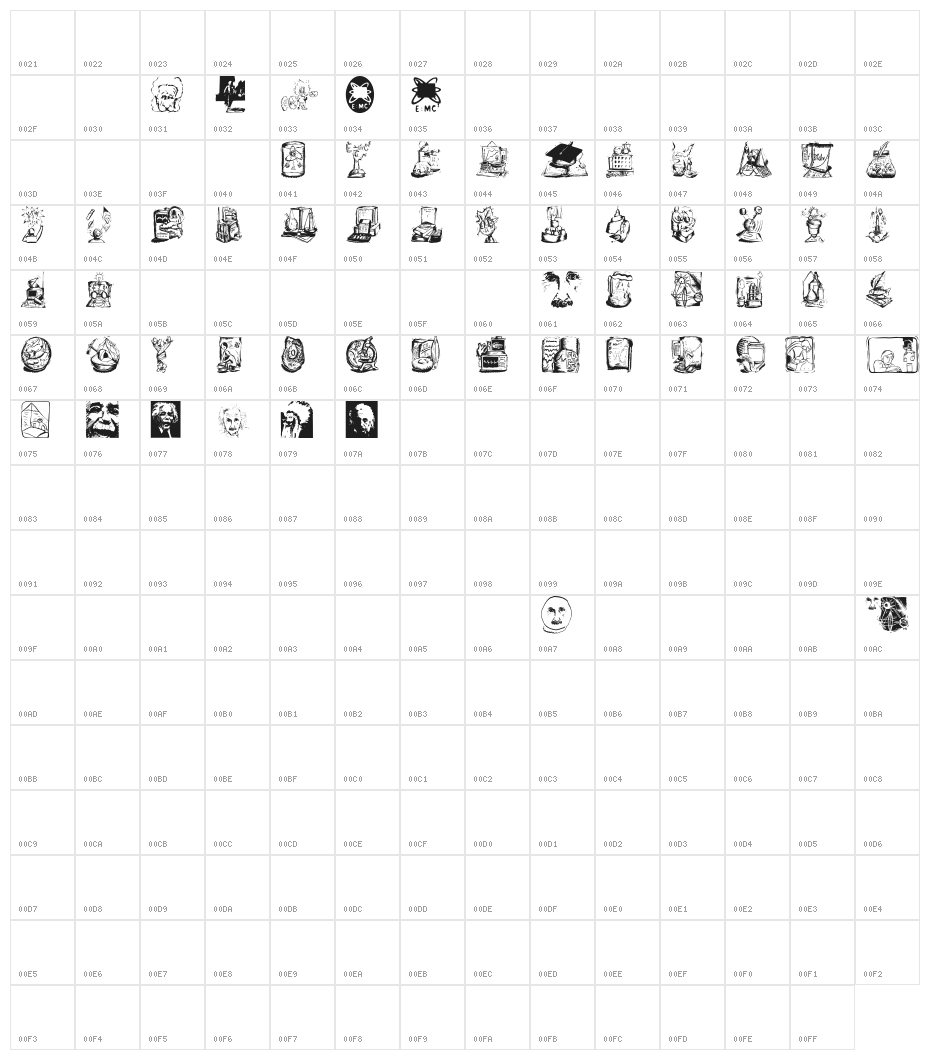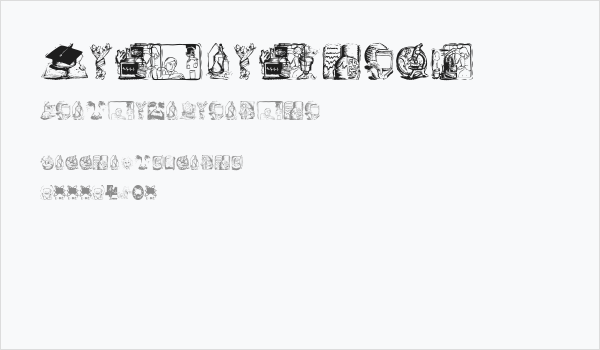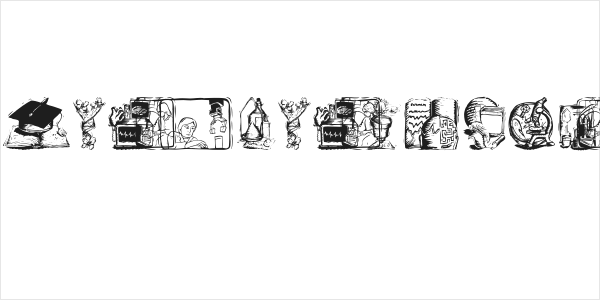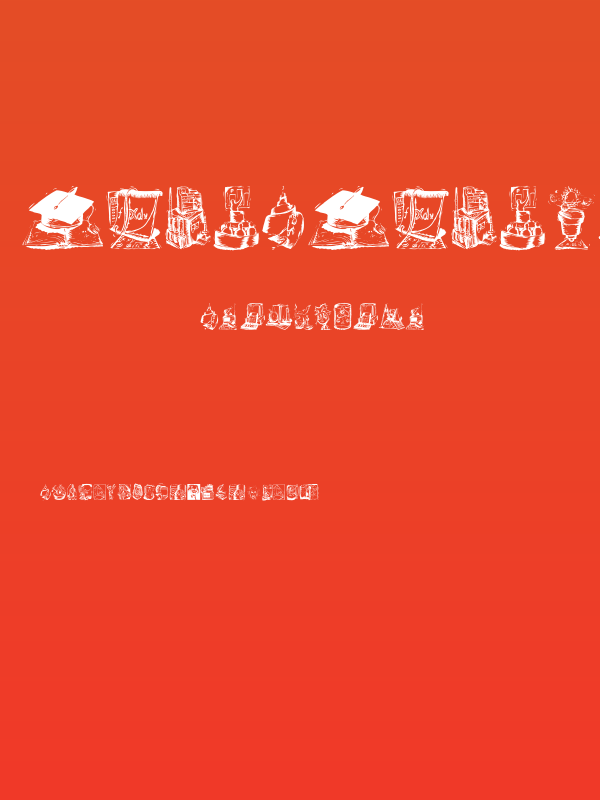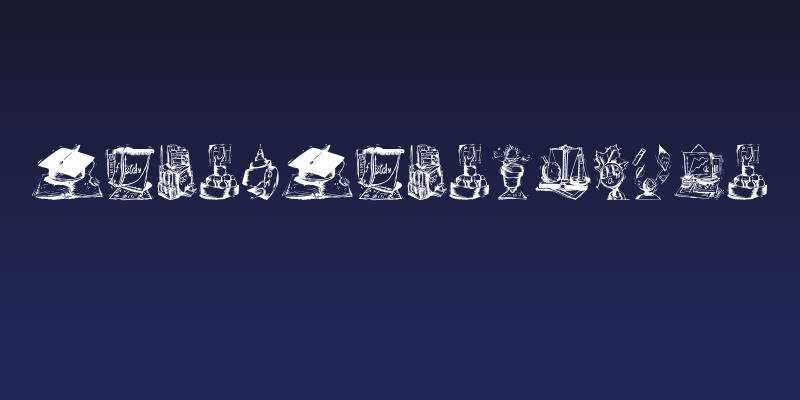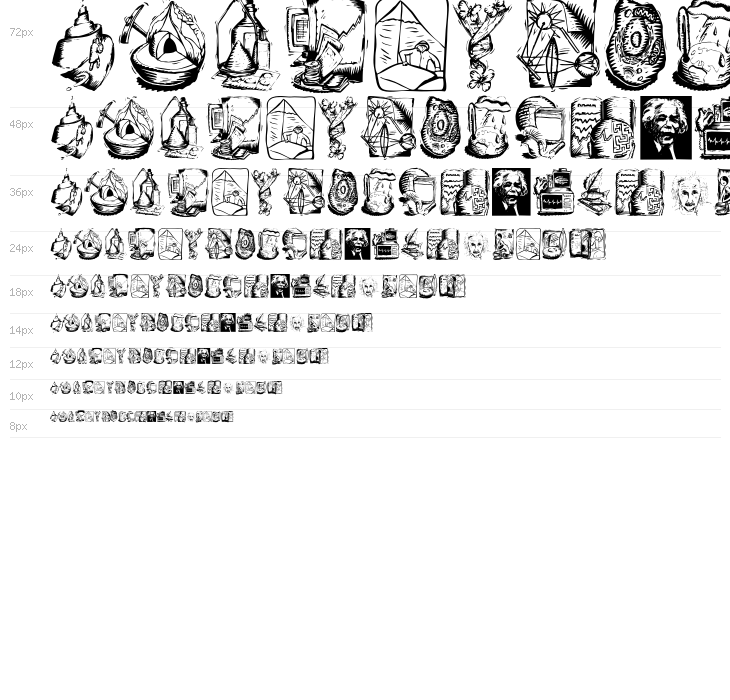
EinsteinsWorlds Font
A highly decorative and illustrative font composed of hand-drawn sketches and caricatures related to science, physics, and Albert Einstein, with each character represented by a unique, detailed image rather than traditional letterforms.
| Overall Style | Decorative, Playful, Thematic |
| Use Case | Logos, Headlines, Posters, Themed graphics |
| Proposed Projects | Educational posters, science fair materials, themed event invitations, children's science books, playful branding for STEM programs. |